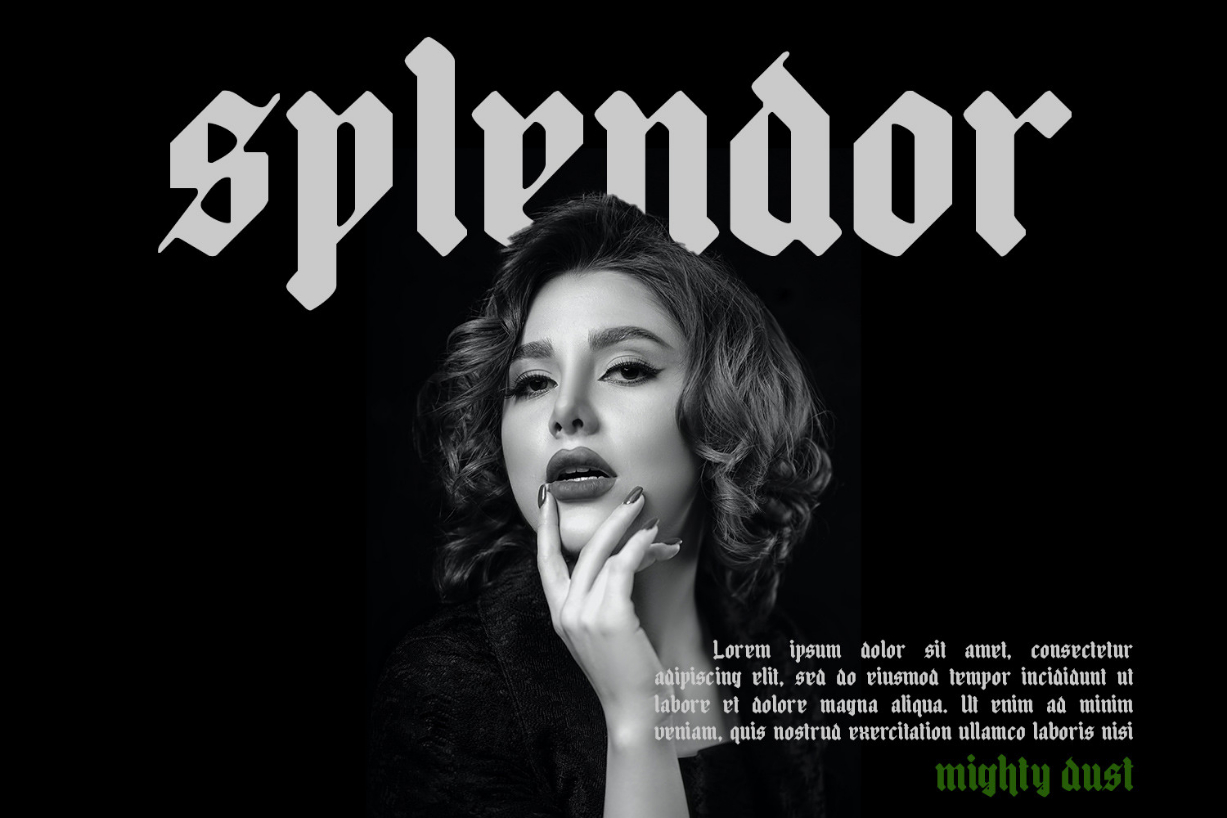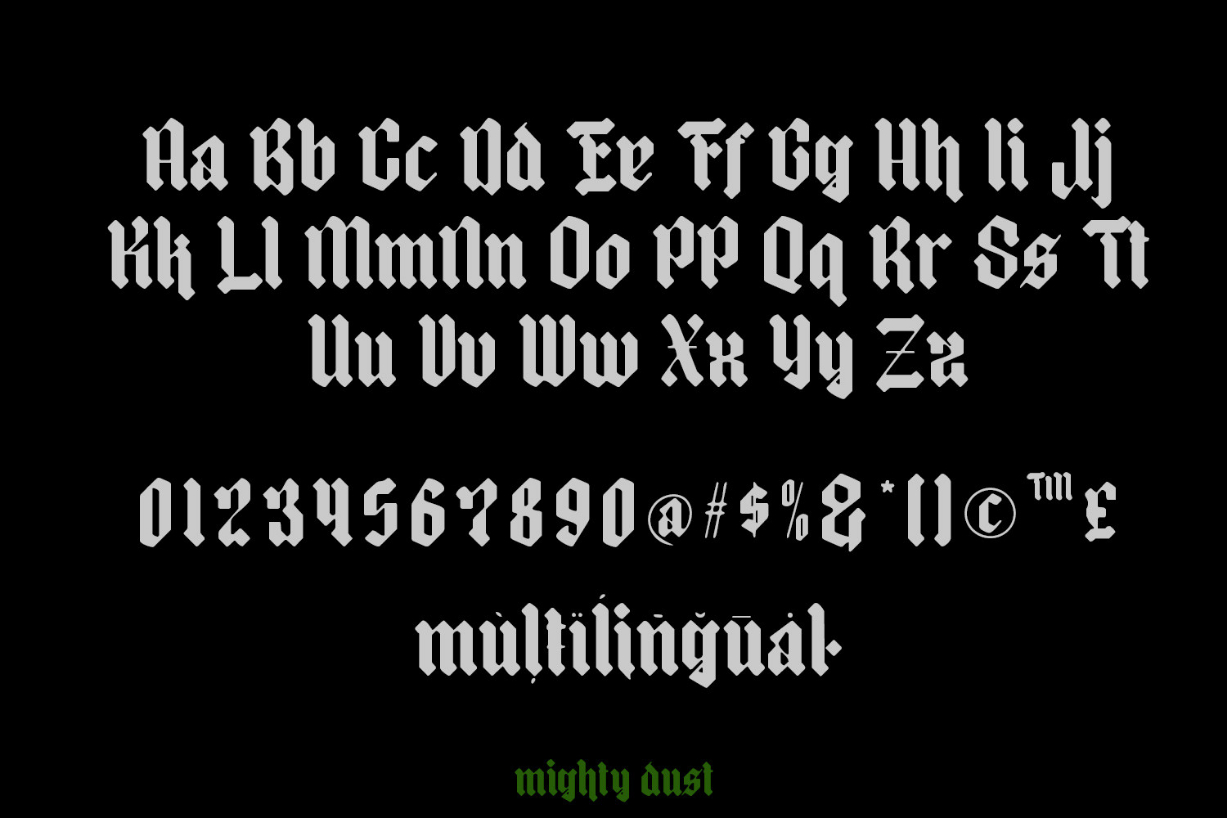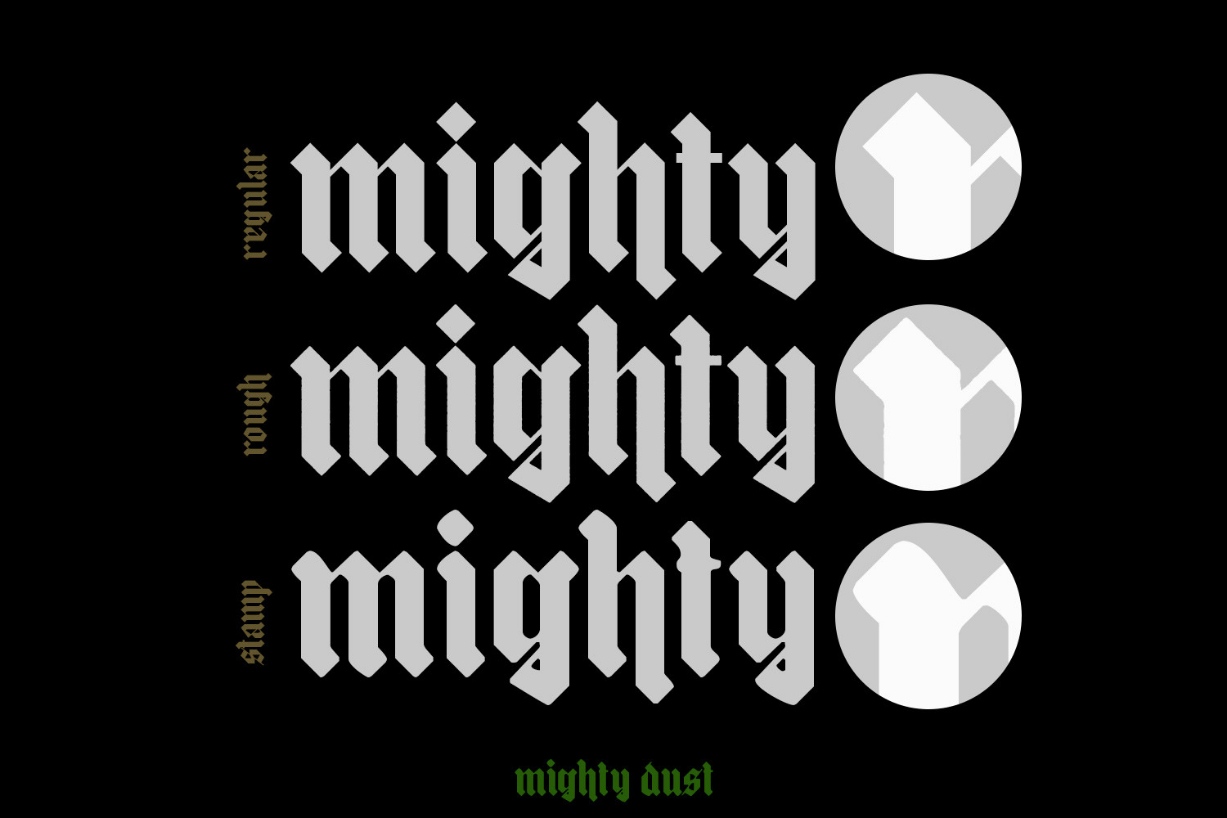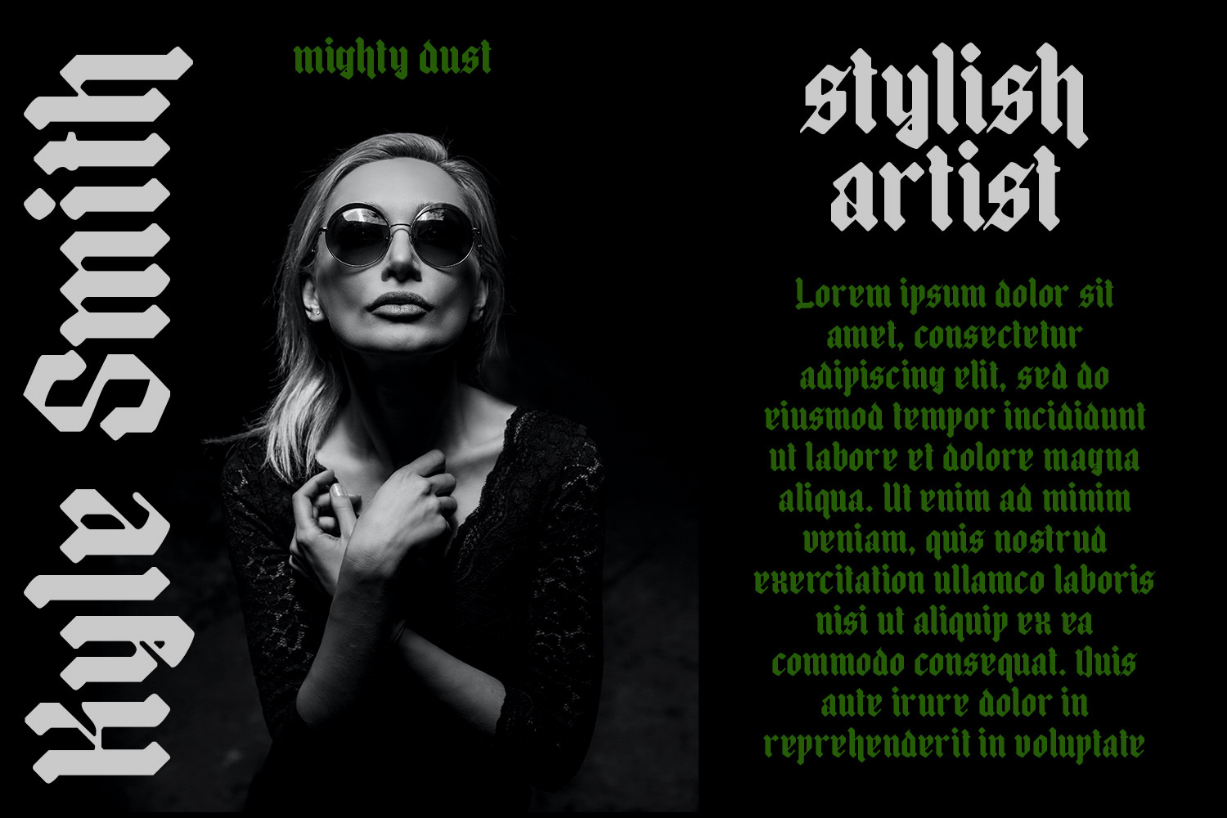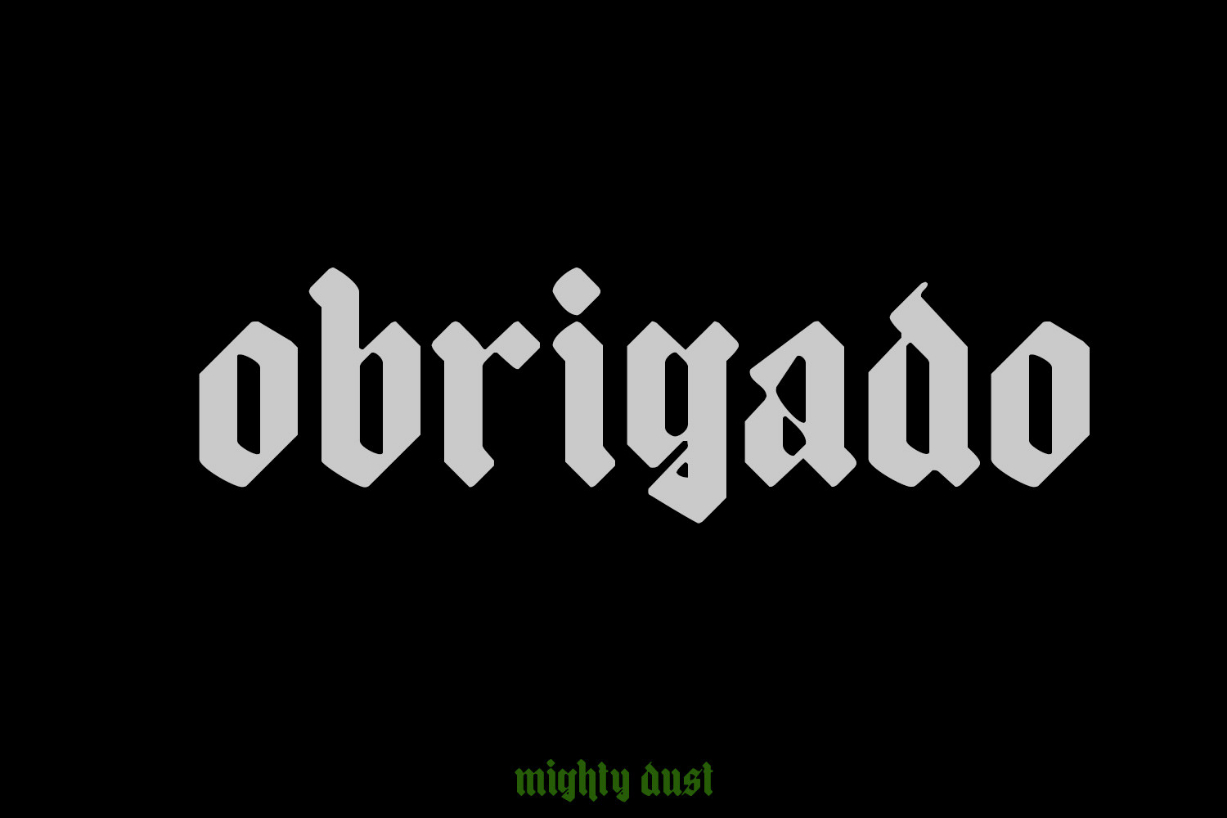
The Mighty Dust Font
About The Mighty Dust Font
The Mighty Dust is a bold and assertive blackletter font. It is perfect for labels, branding or various other design ideas that require a distinct touch.